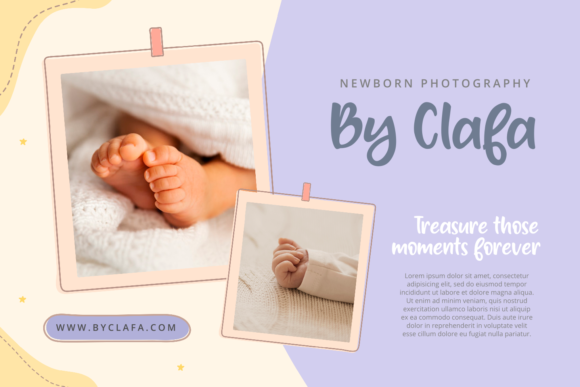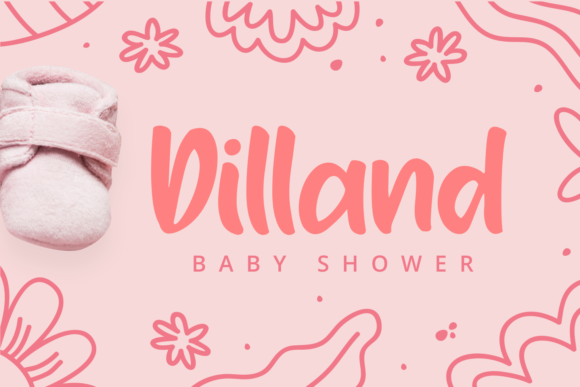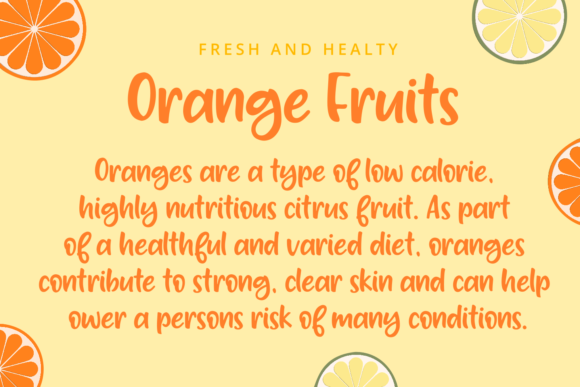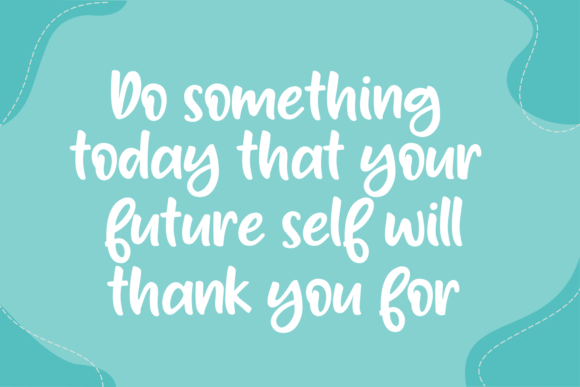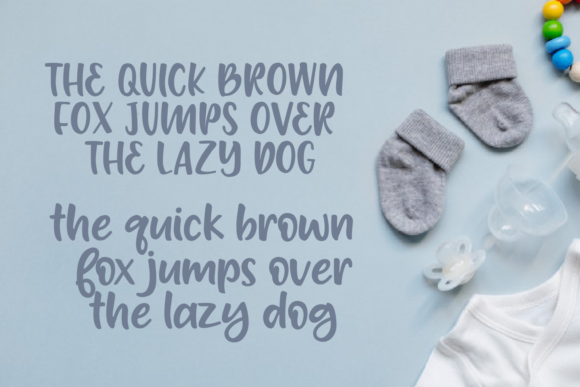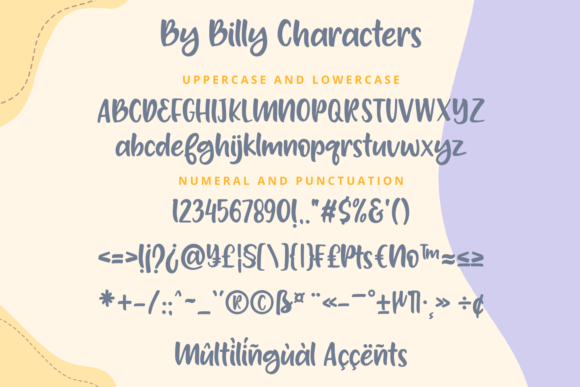
Introducing Hay Billy Font: The Friendly and Joyful Display Font for Child and School Related Designs
Are you a designer or crafter looking for a font that exudes friendliness and joy? Look no further than Hay Billy Font! This delightful display font is perfect for a wide range of child or school related designs, and is sure to bring a smile to anyone’s face. In this article, we’ll take a closer look at the Hay Billy Font, its features, and how you can use it to create engaging and effective designs.
What is Hay Billy Font?
Hay Billy Font is a friendly, cartoon-like display font that is designed to evoke feelings of happiness and approachability. Its playful and cheerful appearance makes it an ideal choice for designs aimed at children, schools, or any project that requires a lighthearted and youthful touch.
Key Features of Hay Billy Font
- Cartoon-like appearance: Hay Billy Font has a distinctive cartoon-like style that is reminiscent of childhood favorites. Its bold lines, rounded edges, and playful curves make it a joy to use.
- Friendliness and approachability: The font’s friendly and approachable design makes it perfect for designs that require a personal touch.
- Display font: Hay Billy Font is a display font, making it ideal for headlines, titles, and other prominent text elements.
- Wide range of uses: From children’s books and educational materials to school posters and craft projects, Hay Billy Font is versatile enough to be used in a variety of applications.
Who Can Use Hay Billy Font?
Hay Billy Font is perfect for a wide range of designers and crafters, including:
- Children’s book authors and illustrators: Add a playful touch to your storybook with Hay Billy Font.
- Teachers and educators: Use Hay Billy Font to create engaging and interactive educational materials.
- Graphic designers: Add a friendly and approachable touch to your designs with Hay Billy Font.
- Crafters and DIY enthusiasts: Use Hay Billy Font to create personalized and unique craft projects.
Tips for Using Hay Billy Font
Here are some tips for getting the most out of Hay Billy Font:
- Use it for headlines and titles: Hay Billy Font is perfect for grabbing attention and adding a playful touch to your designs.
- Pair it with complementary fonts: Combine Hay Billy Font with other fonts to create visual interest and add depth to your designs.
- Experiment with colors and textures: Add an extra layer of personality to your designs by experimenting with different colors and textures.
| Font Name | Hay Billy Font |
| Author | zeenesia |
Hay Billy Font is a friendly, cartoon-like display font that is perfect for child and school related designs. Its playful and cheerful appearance makes it an ideal choice for designers and crafters looking to add a lighthearted touch to their projects. With its wide range of uses and versatility, Hay Billy Font is sure to become a favorite in your design toolkit.